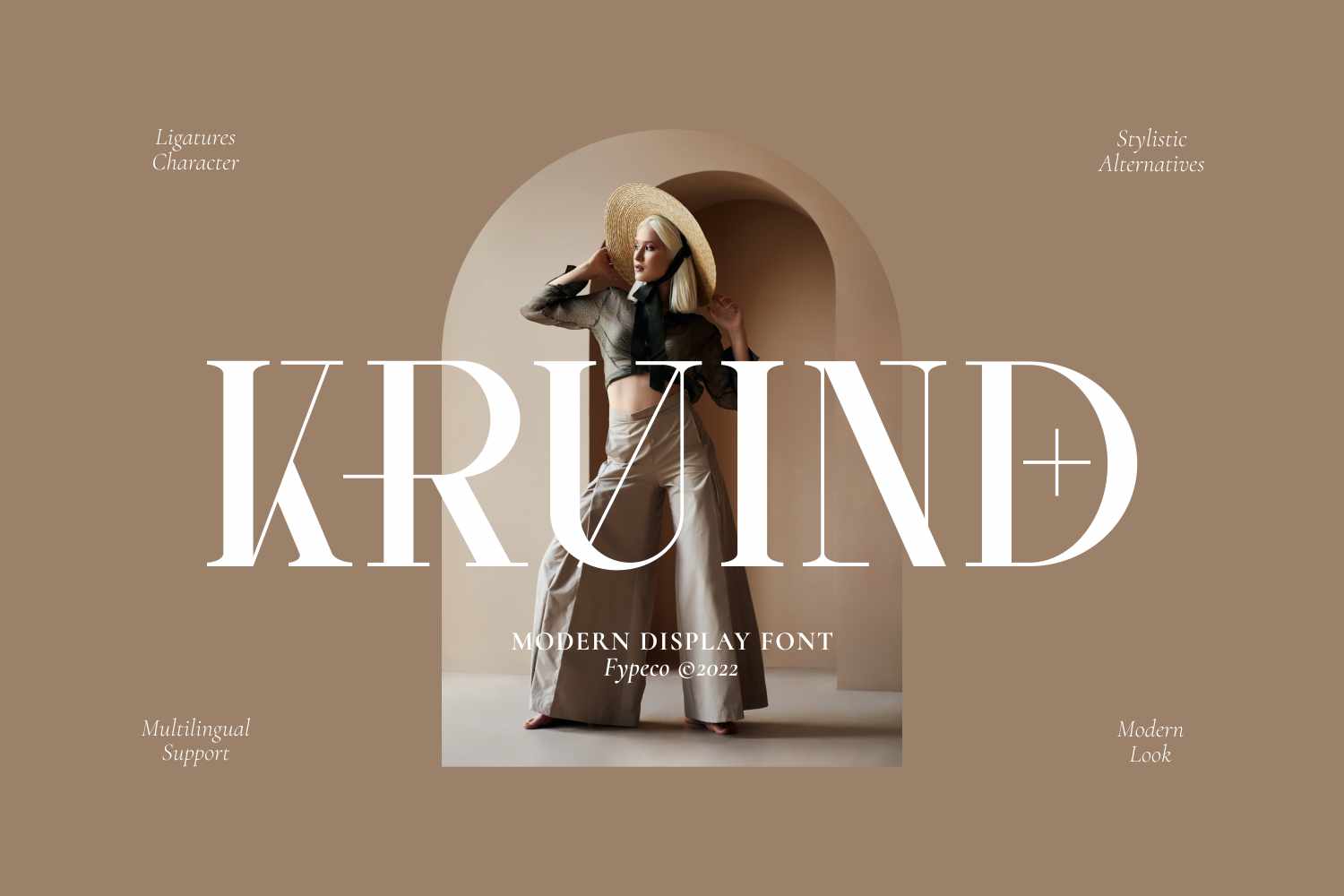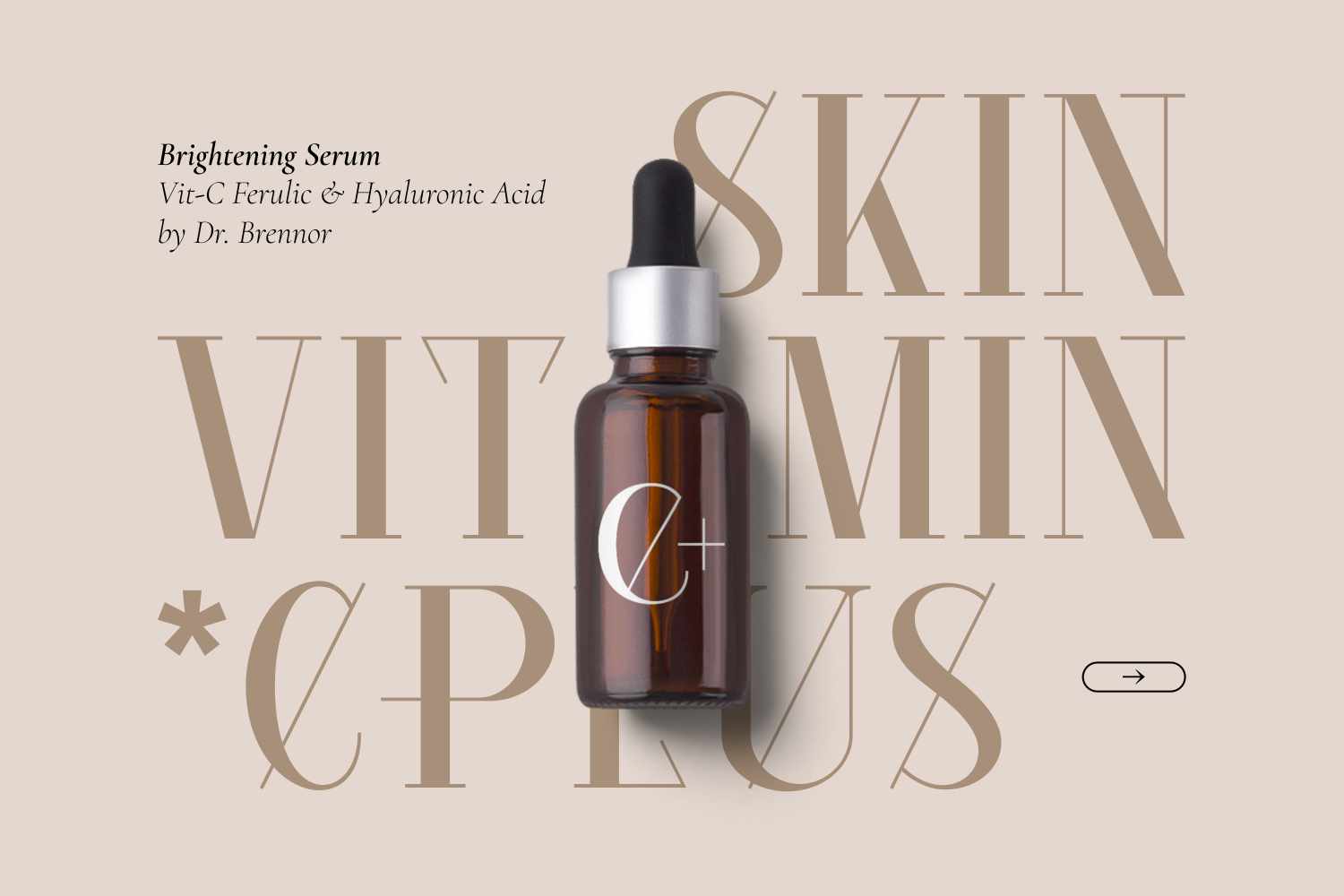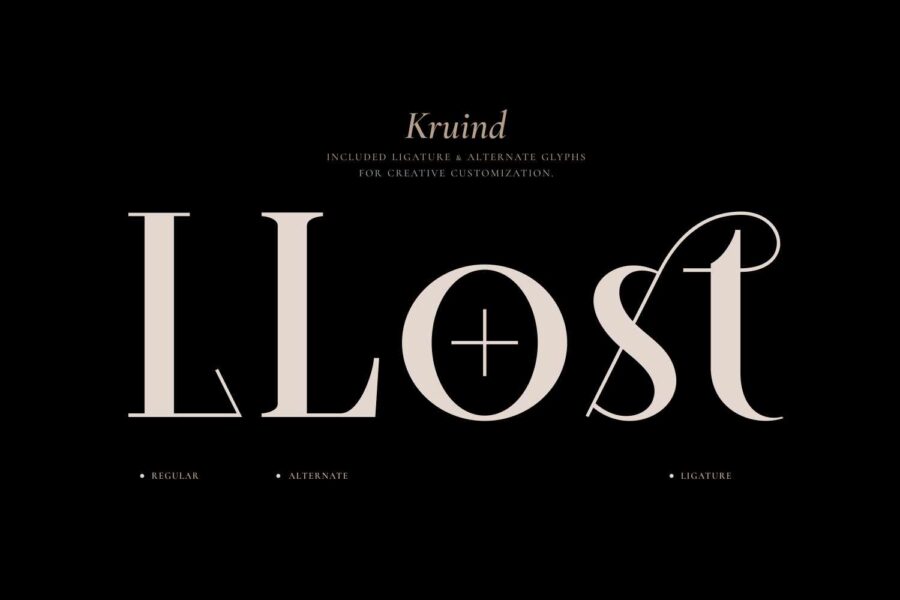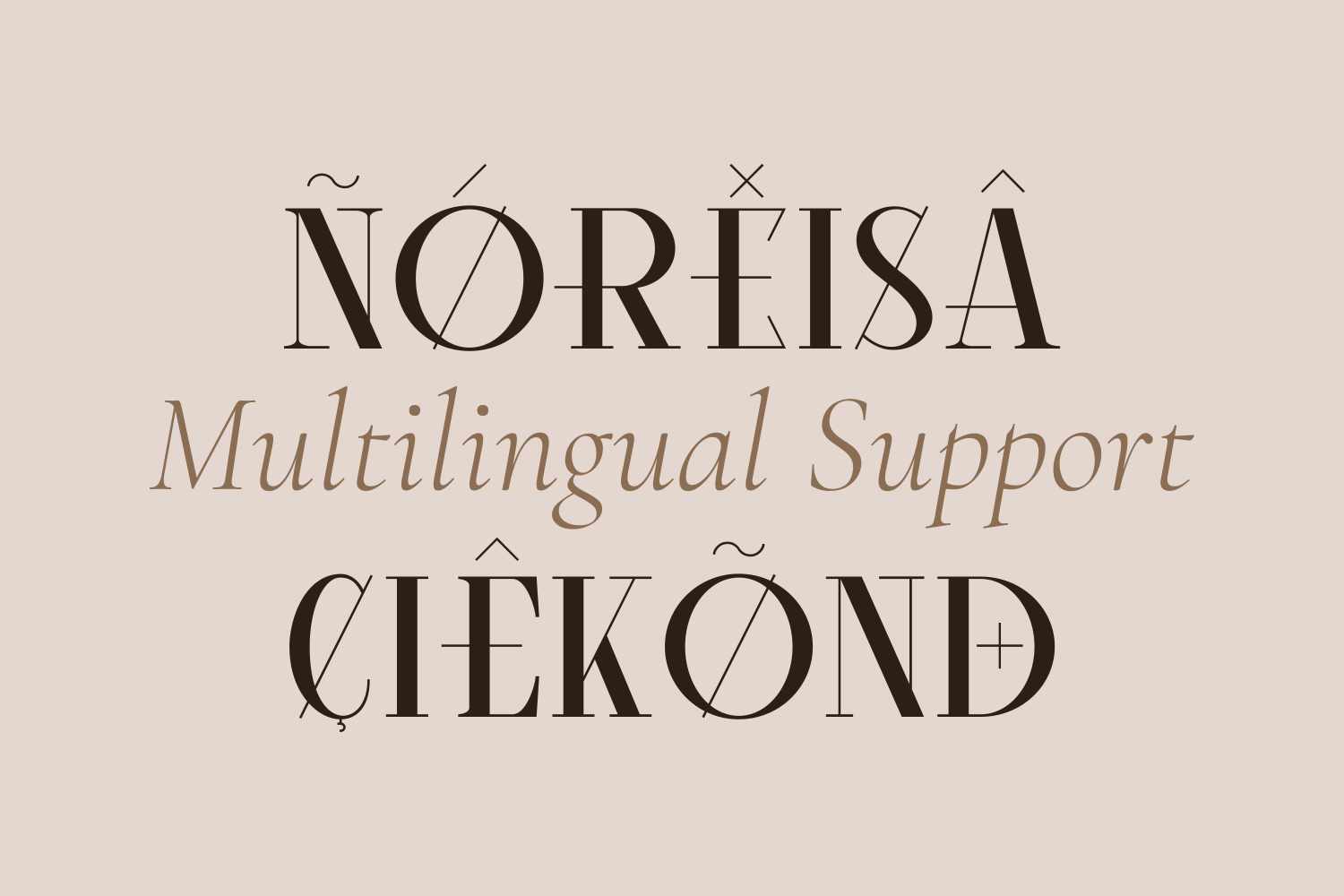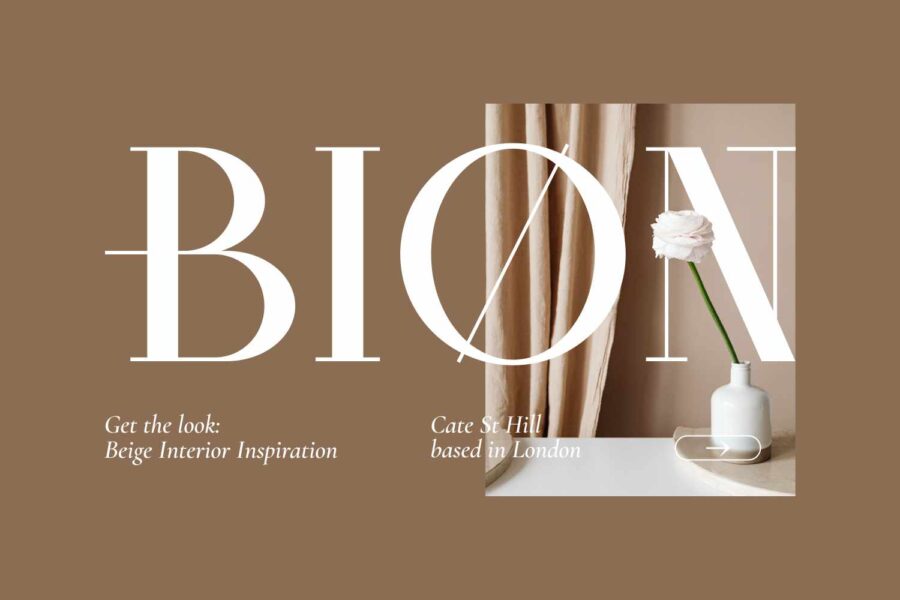
Kruind
Kruind is a modern serif display font that radiates sophistication and artistic charm. With its sharp contrasts, elegant curves, and carefully designed proportions, this typeface instantly elevates any design it touches. Featuring unique ligatures and stylish alternates, Kruind offers endless creative possibilities, making it the perfect choice for luxury branding, fashion editorials, high-end packaging, and striking logo designs.
Crafted with versatility in mind, Kruind combines classic elegance with a fresh contemporary look. Its multilingual support ensures seamless use across global projects, while its refined details bring a premium feel to both print and digital media. Whether you’re designing a magazine cover, a wedding invitation, or a bold advertising campaign, Kruind adds a timeless yet modern character that captures attention and leaves a lasting impression.
Kruind